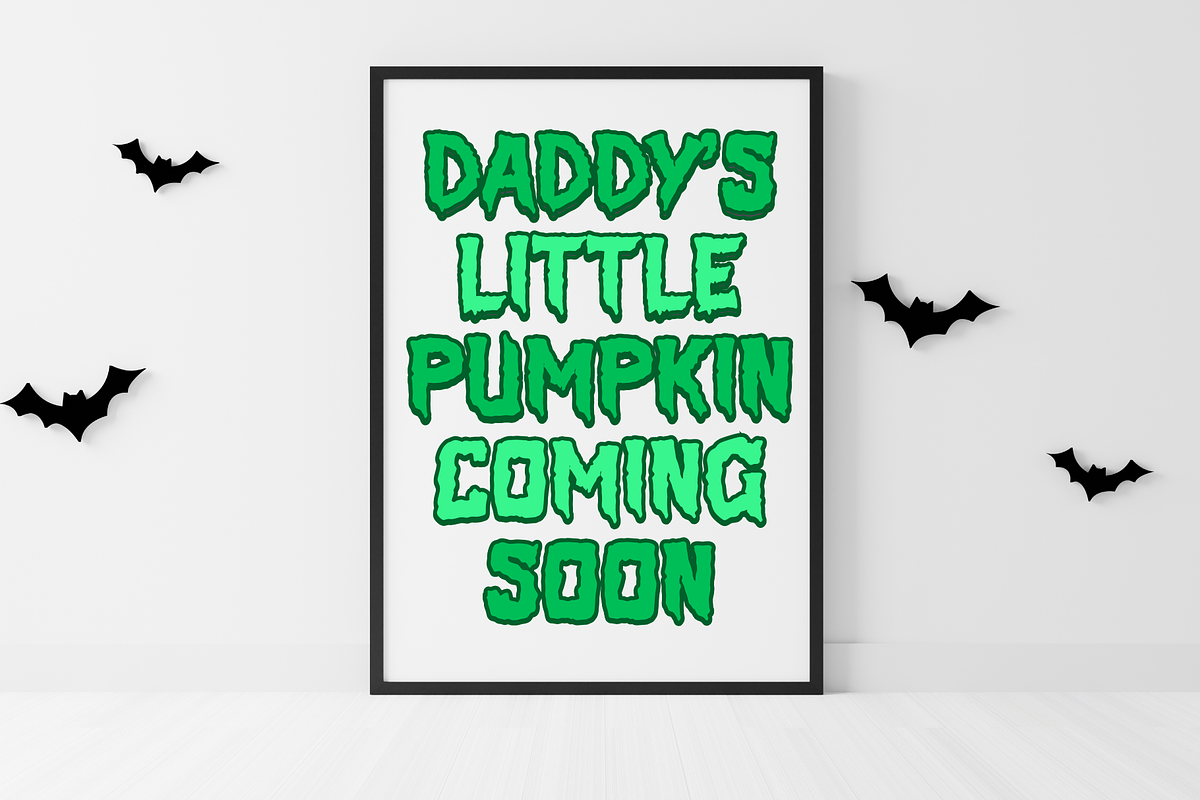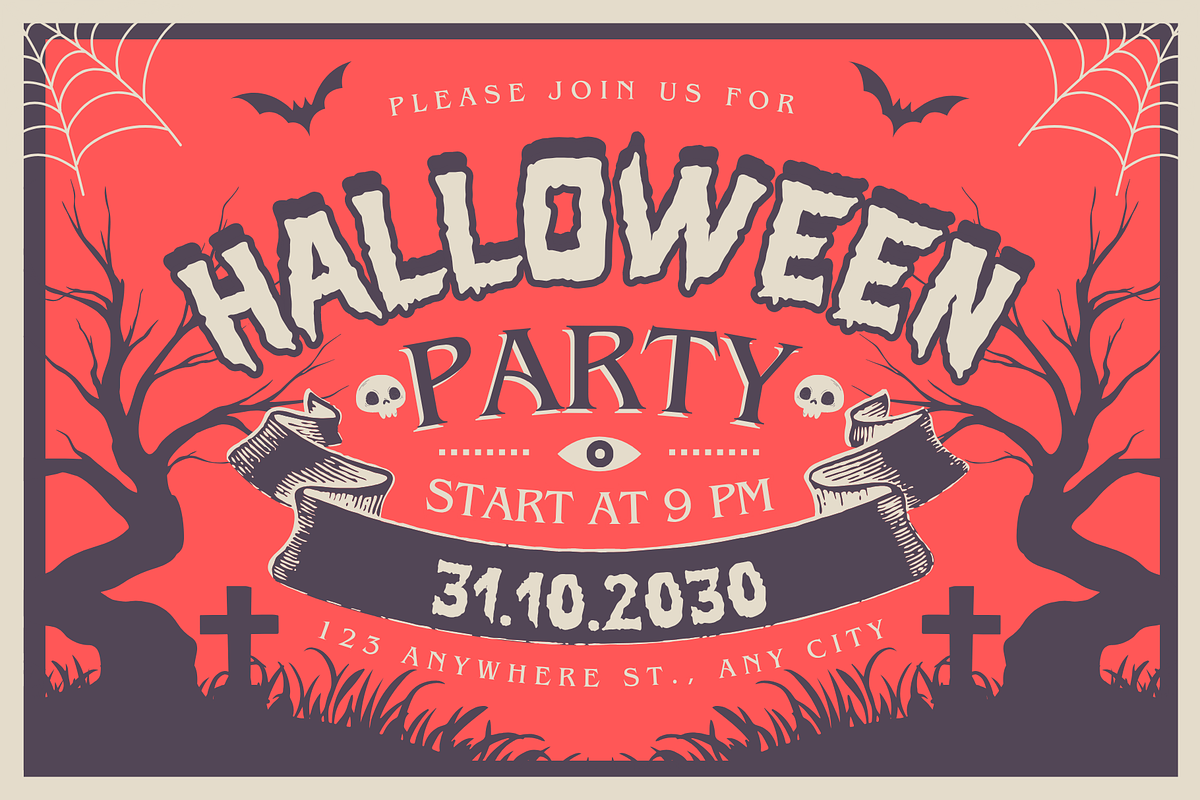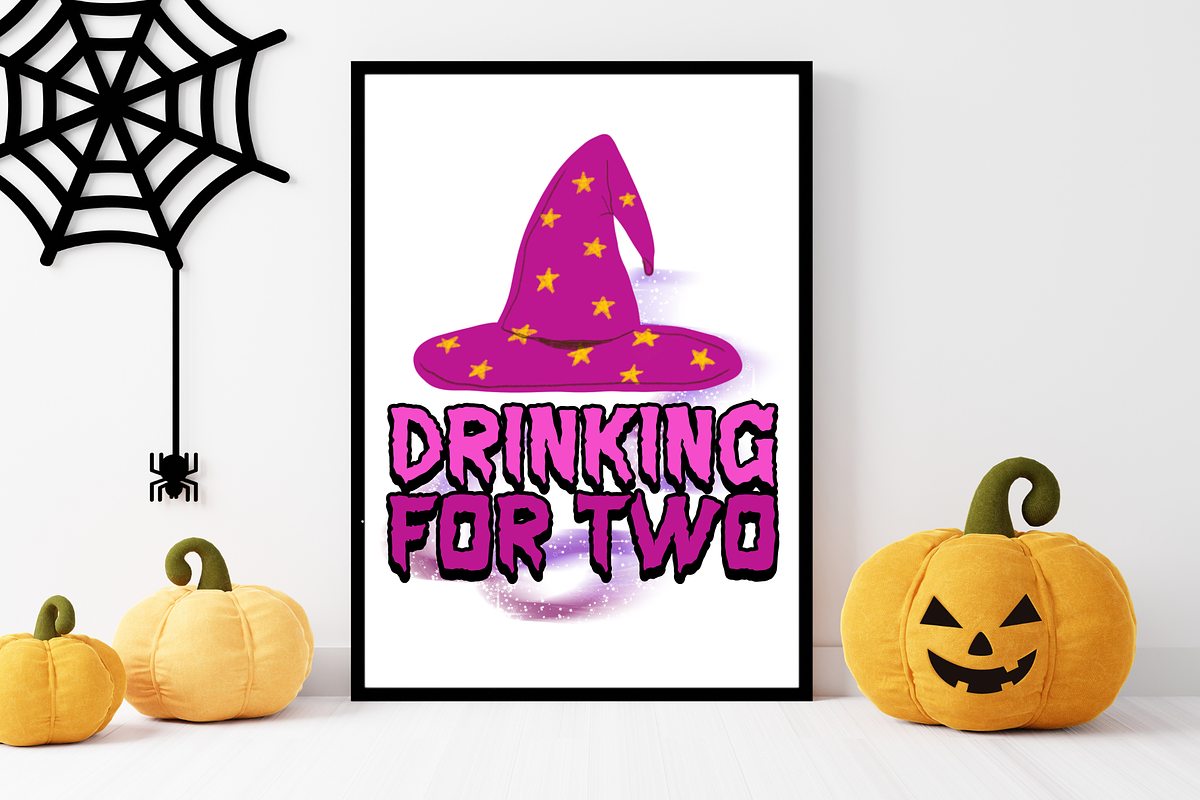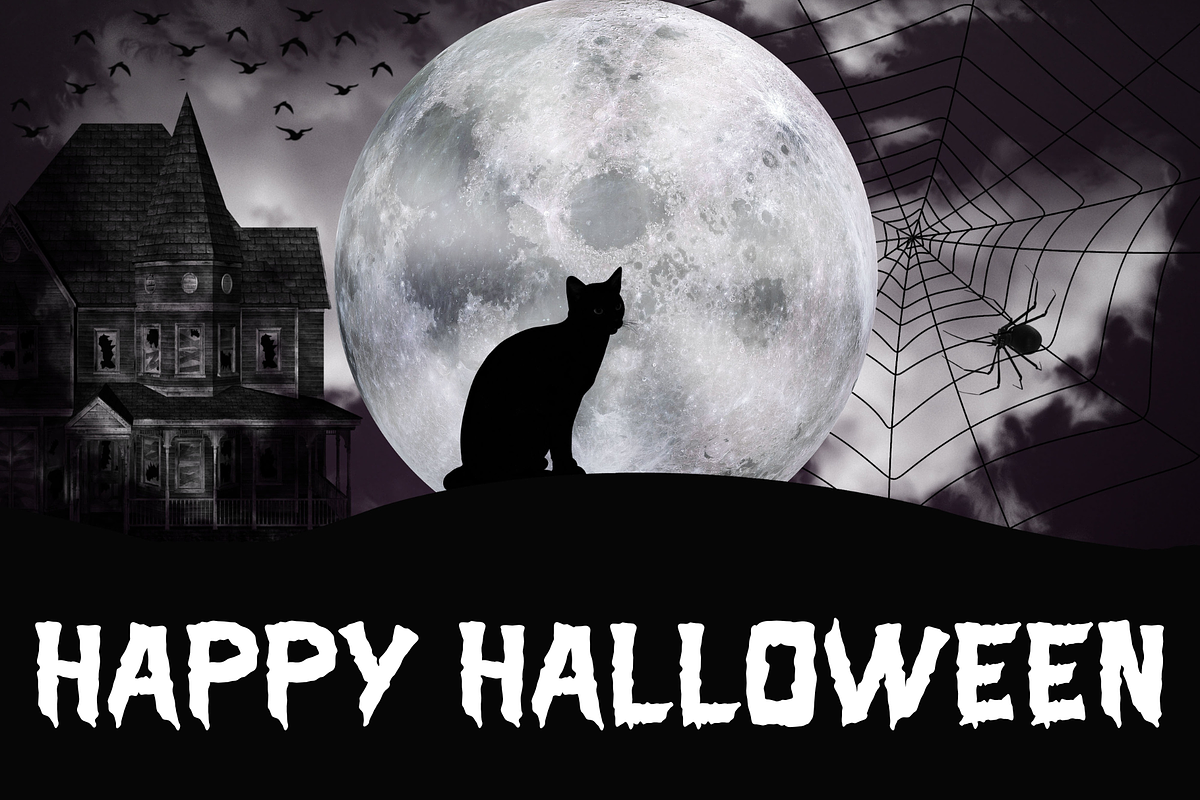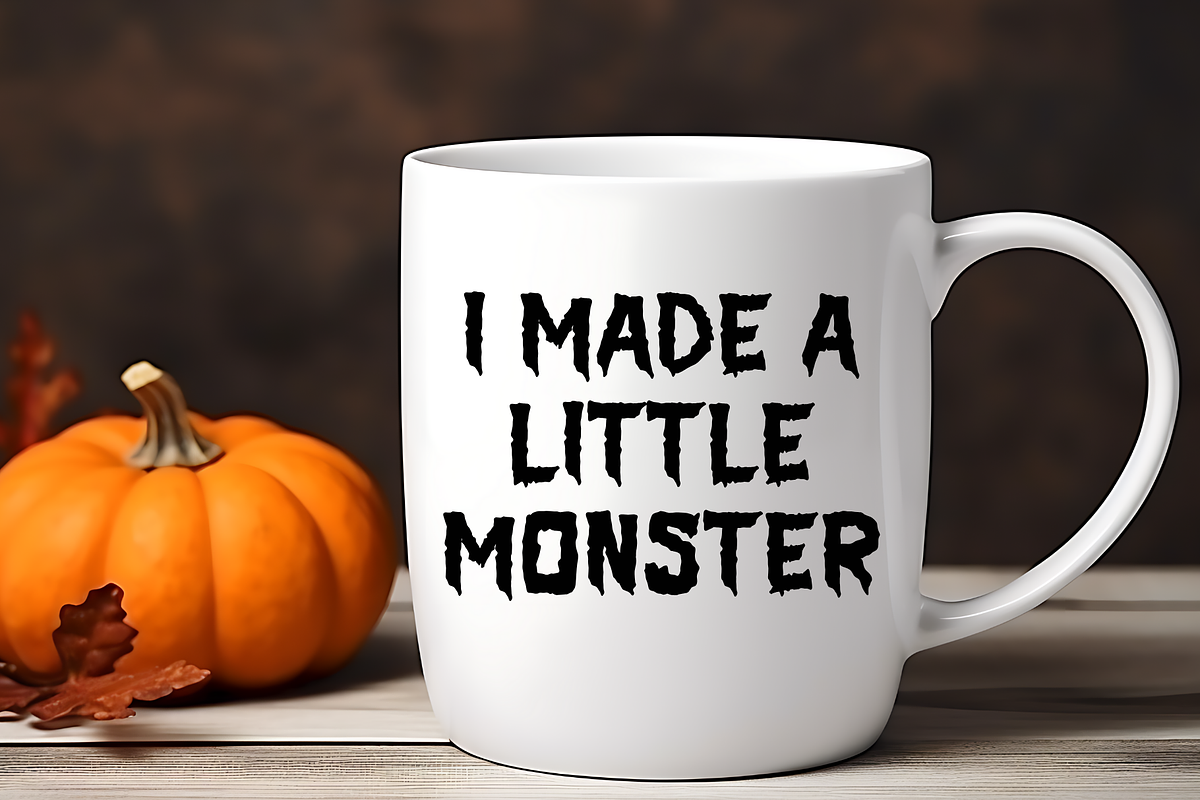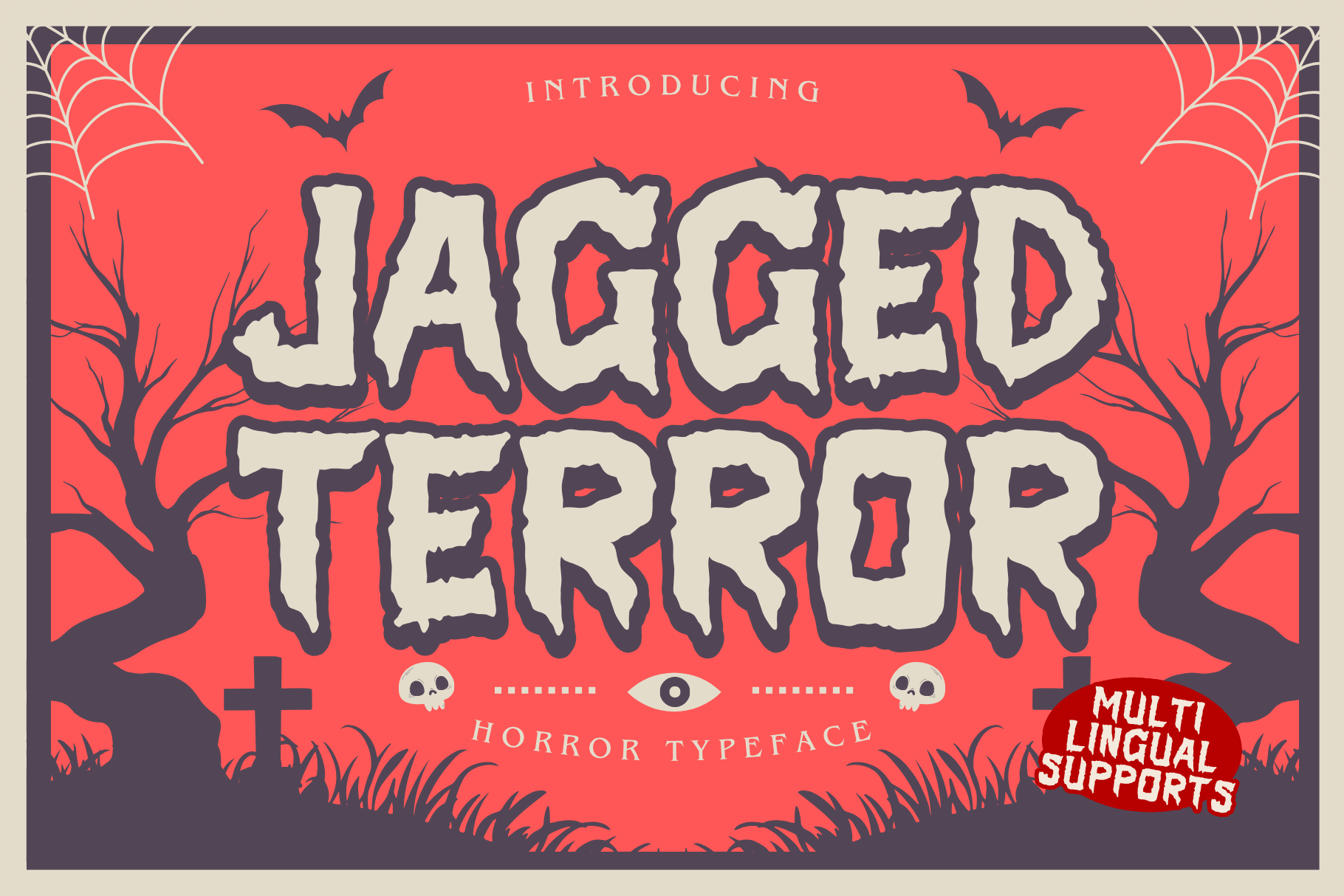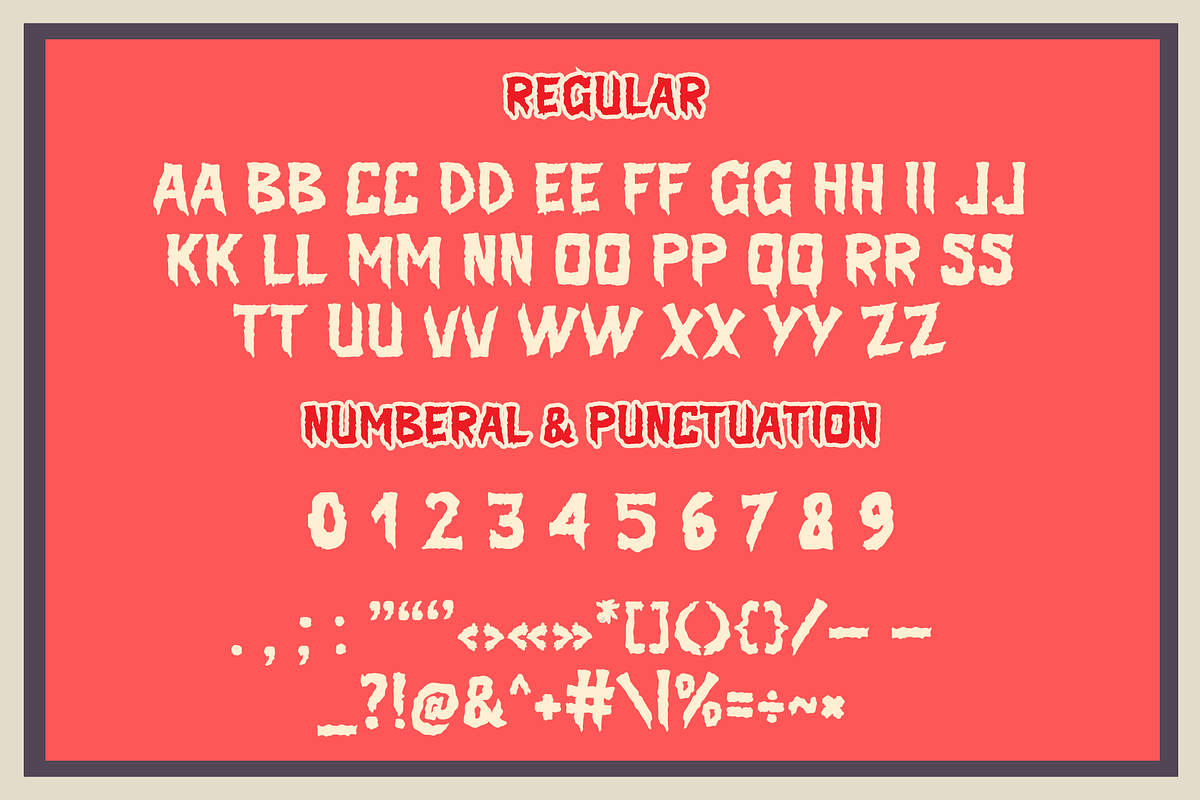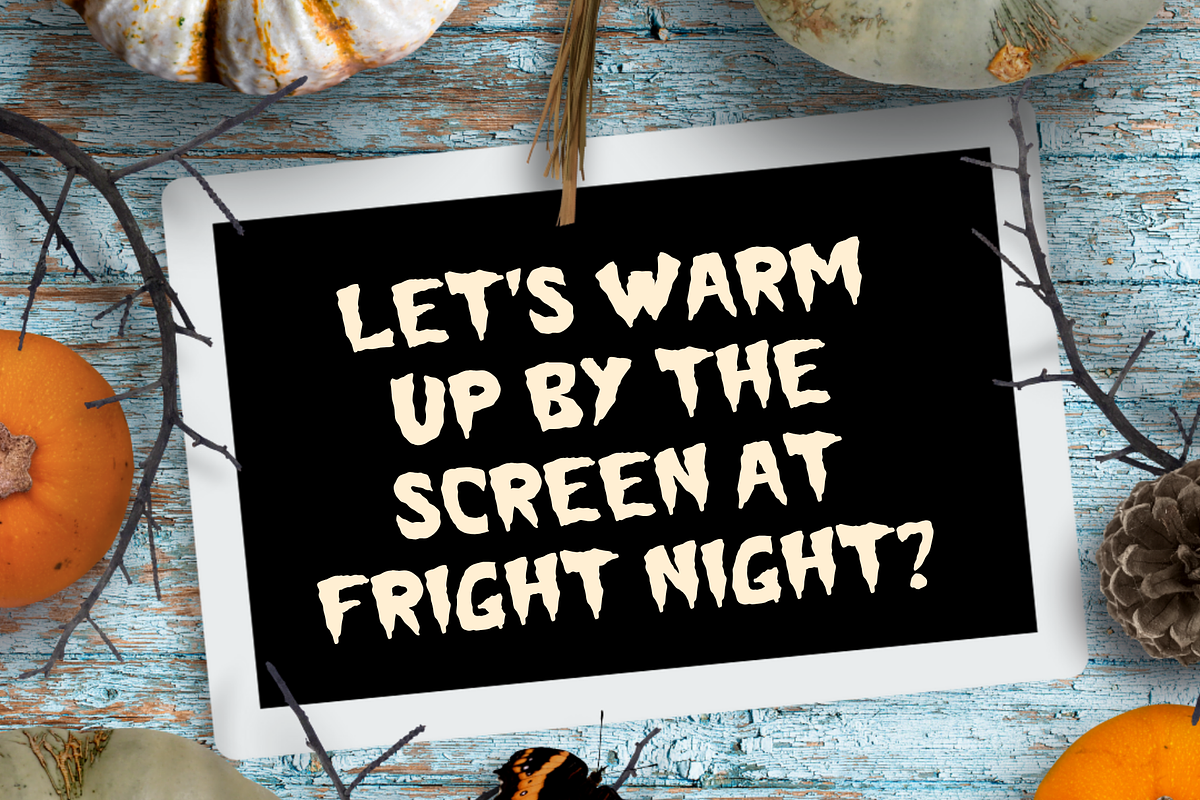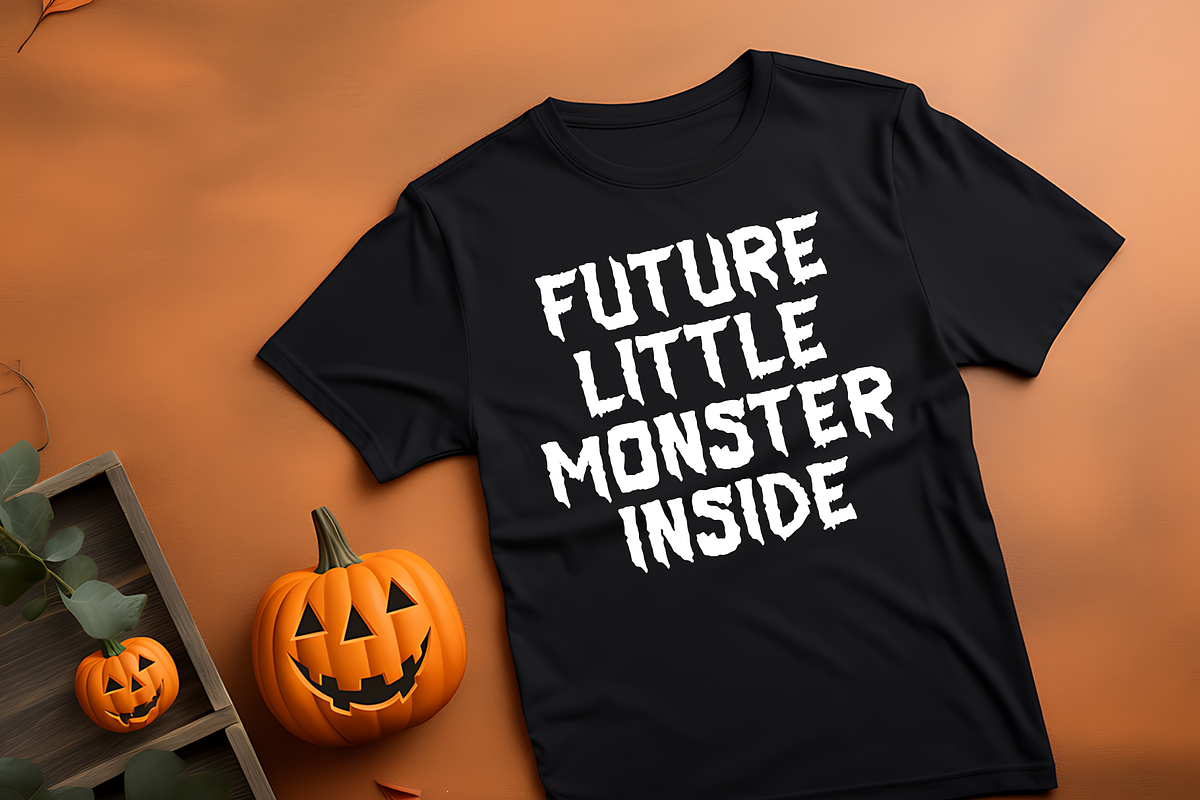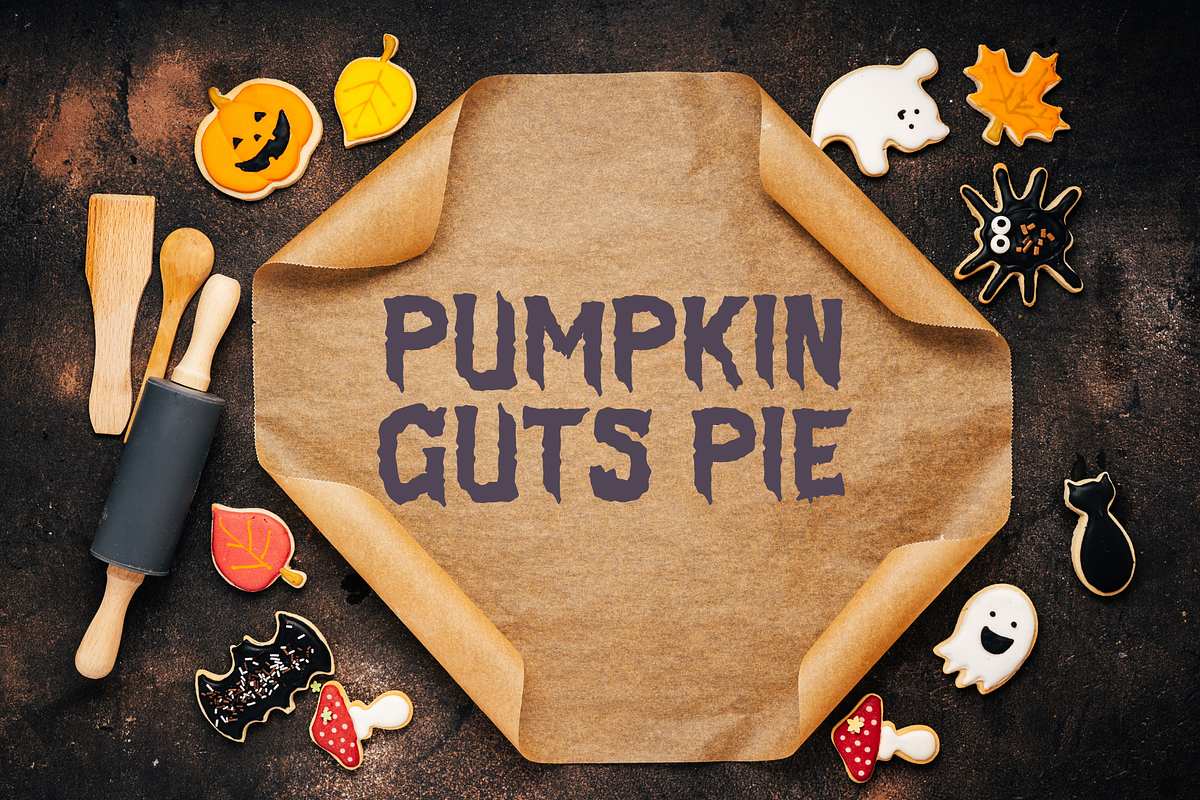
Jagged Terror is a Halloween font
Jagged Terror is a Halloween decorative font. It embodies playfulness and authenticity and is the perfect choice for all your favorite projects, such as blog posts, logos, branding, ads, invitations, greeting cards, planners, photo albums, decorations, and more. Add it to any of your designs, and enjoy the results!